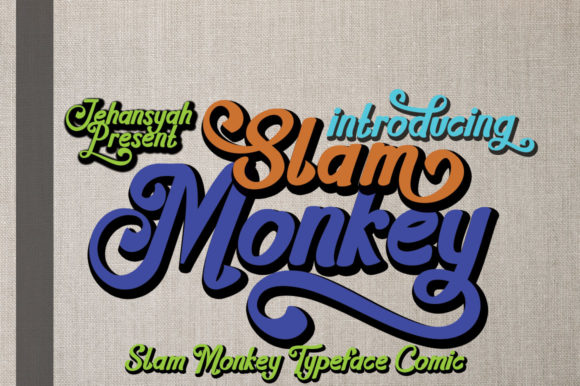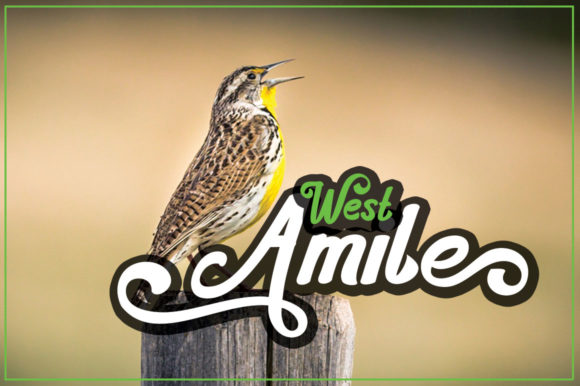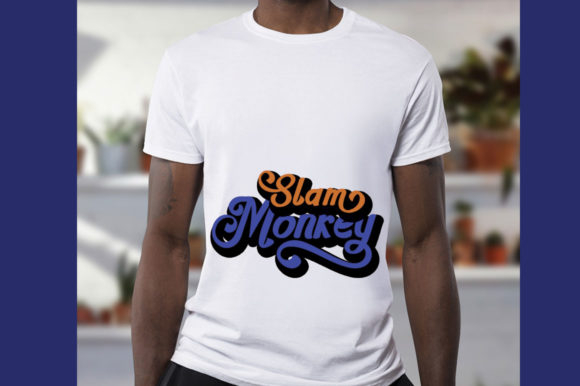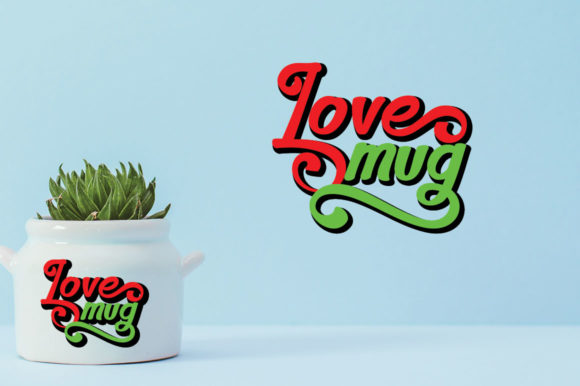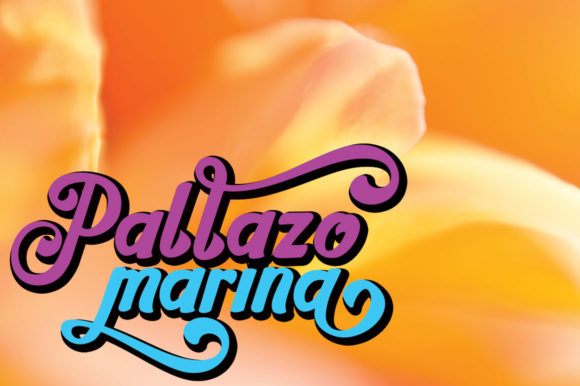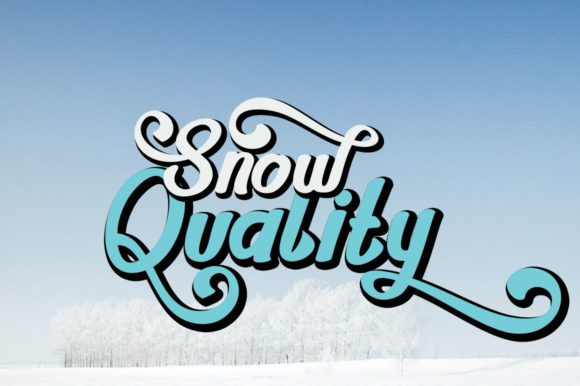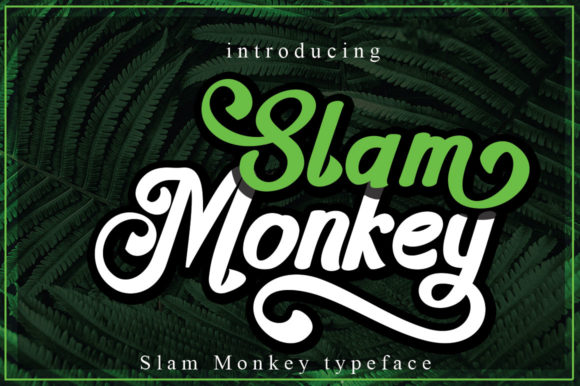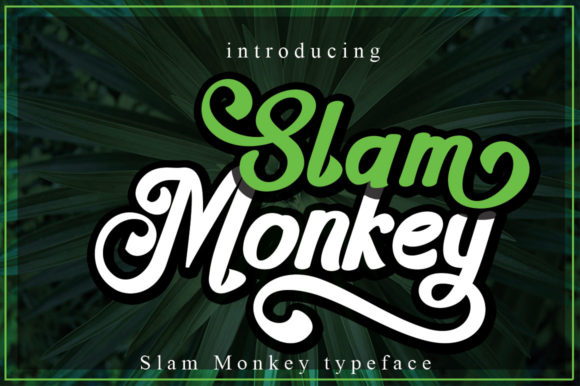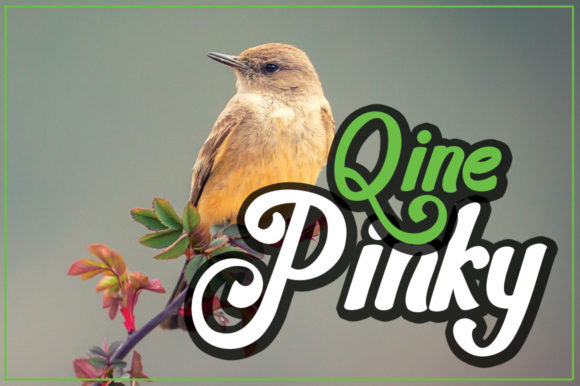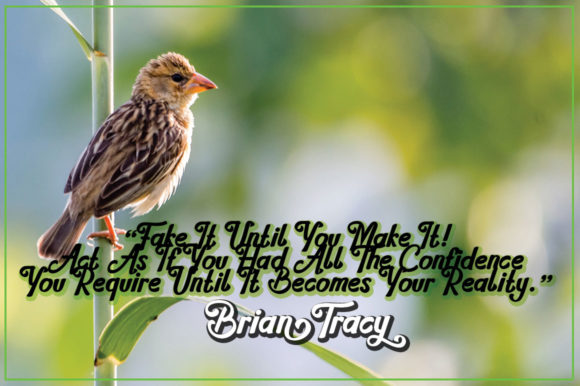
Slam Monkey Font
About Slam Monkey Font
Slam Monkey is an iconic comic-themed handwritten font with a cute vibe. It will add a bold feel to any design project!